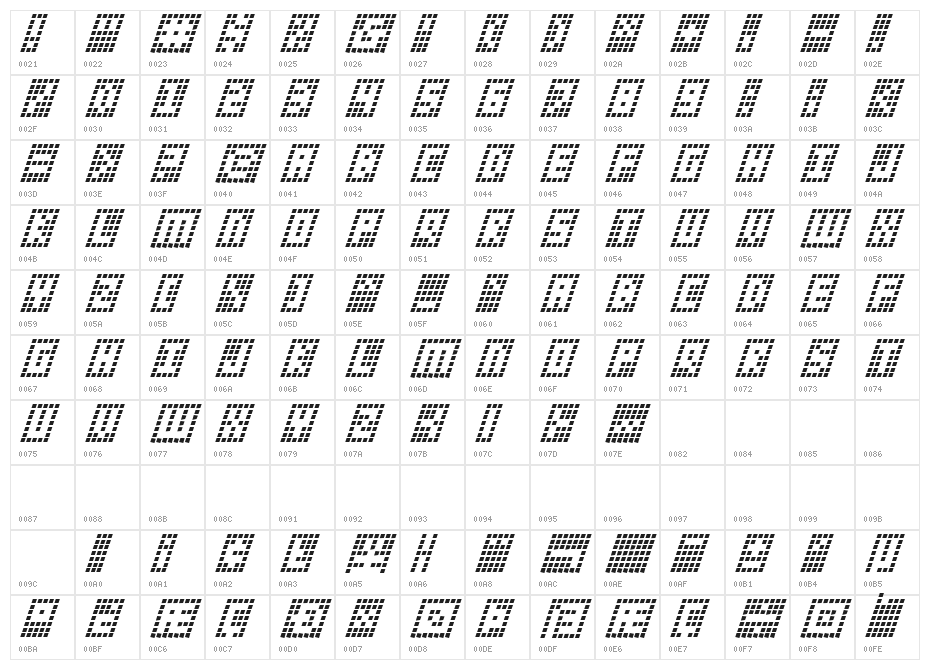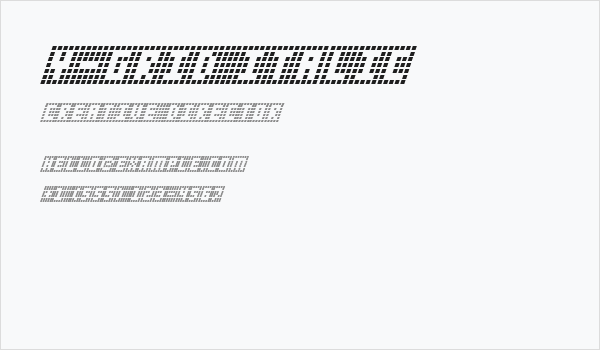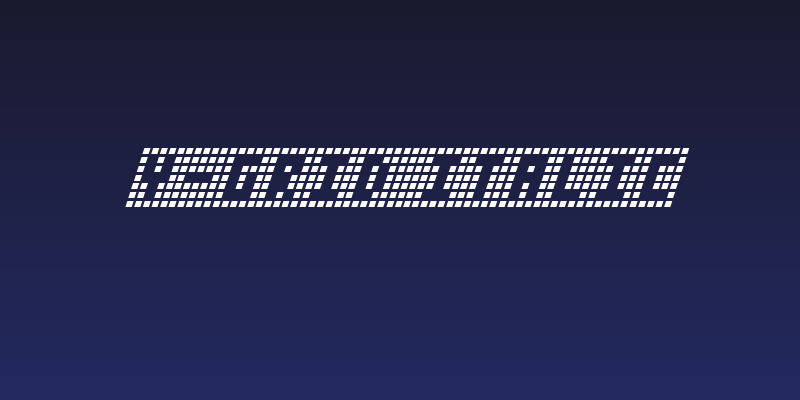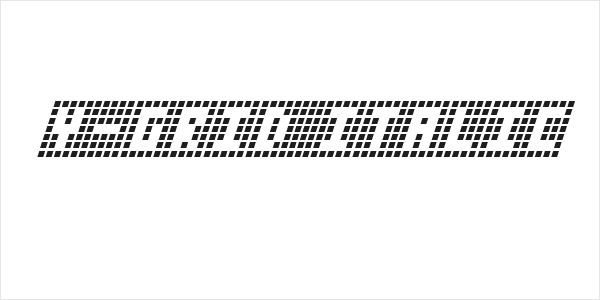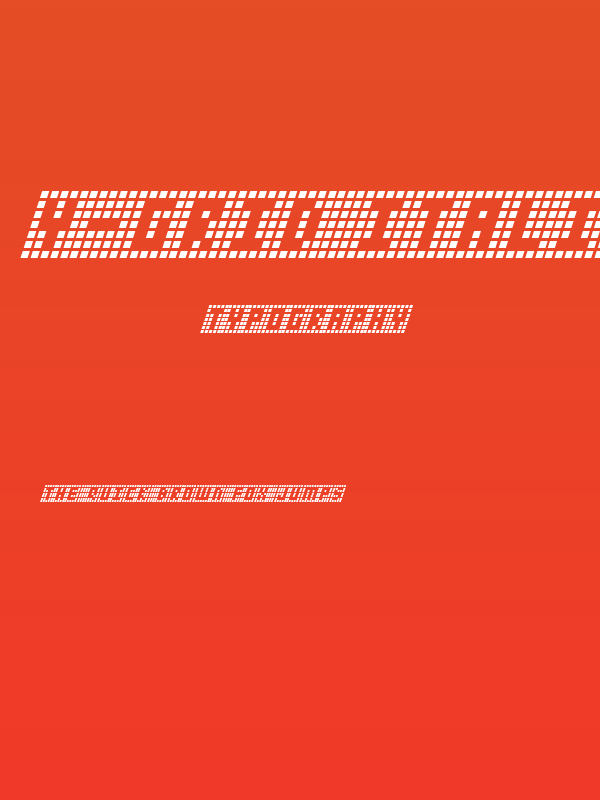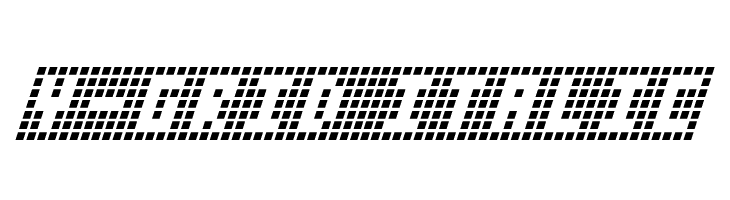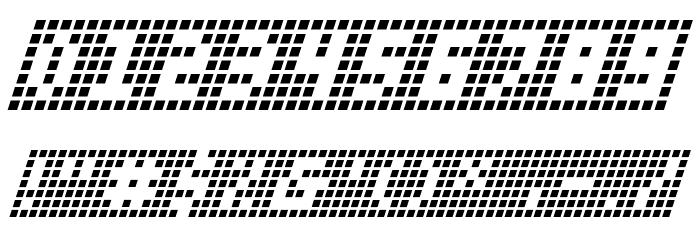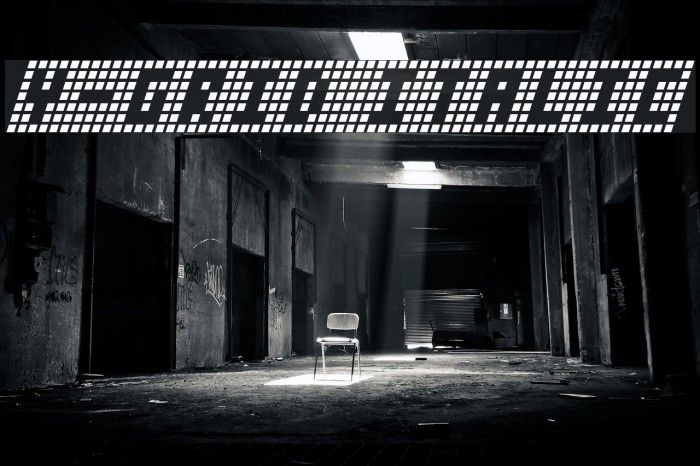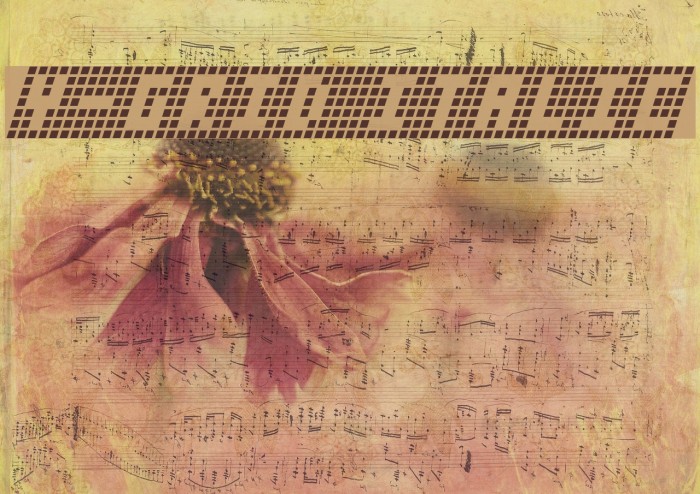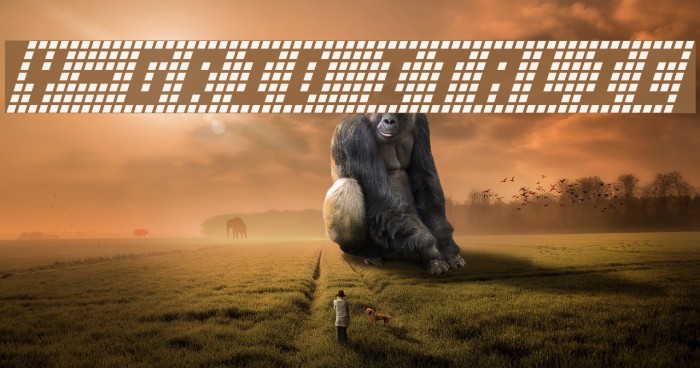
Y-Grid Italic Font
Y-Grid Italic Description
This font features a unique grid-based design where each character is composed of small square blocks, creating a pixelated appearance. The letters are slanted, giving an italicized effect that adds a dynamic and modern touch. The geometric structure of the font makes it highly distinctive, with each character maintaining a consistent blocky form. The spacing between the blocks is uniform, contributing to a cohesive and structured look. This font is ideal for projects that require a digital or tech-inspired aesthetic, such as video game graphics, digital art, or futuristic branding.
| Use Case | Logos, Headlines, Digital Art |
| Proposed Projects | Ideal for digital art, video game graphics, tech branding, and futuristic designs. |